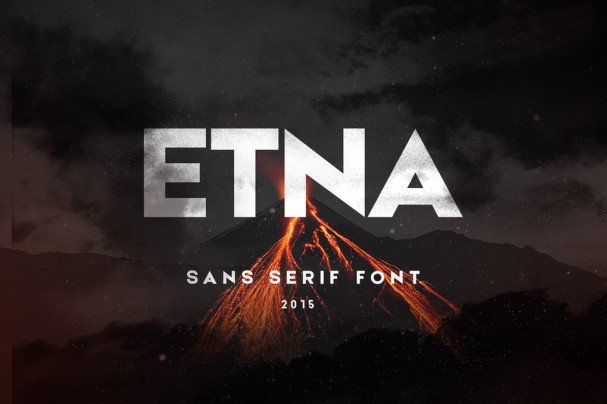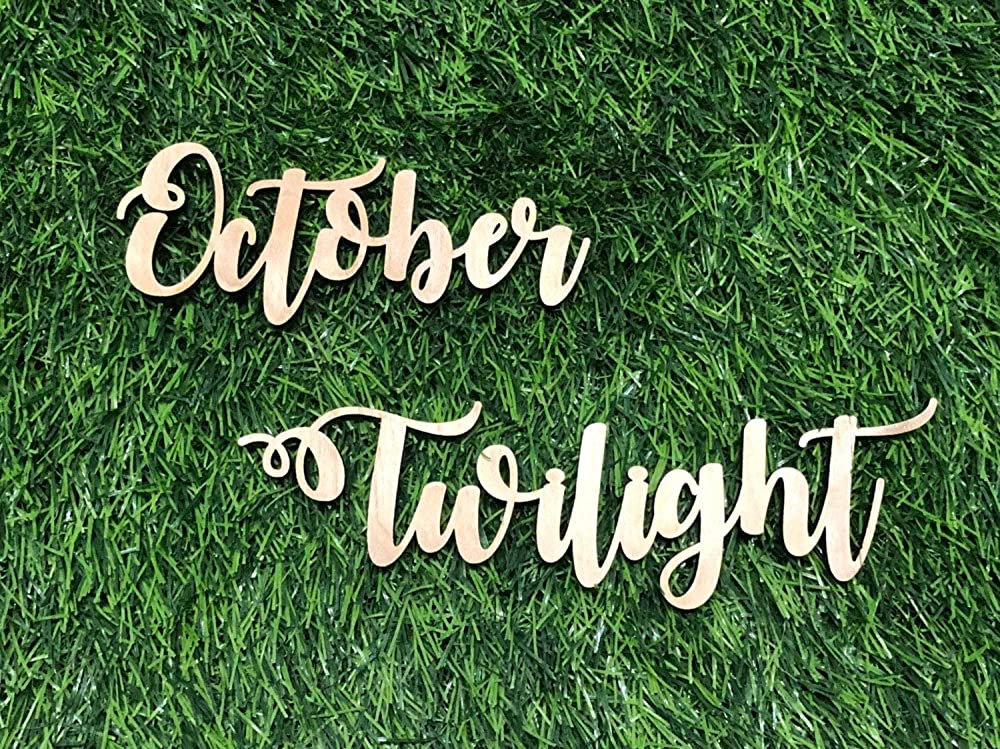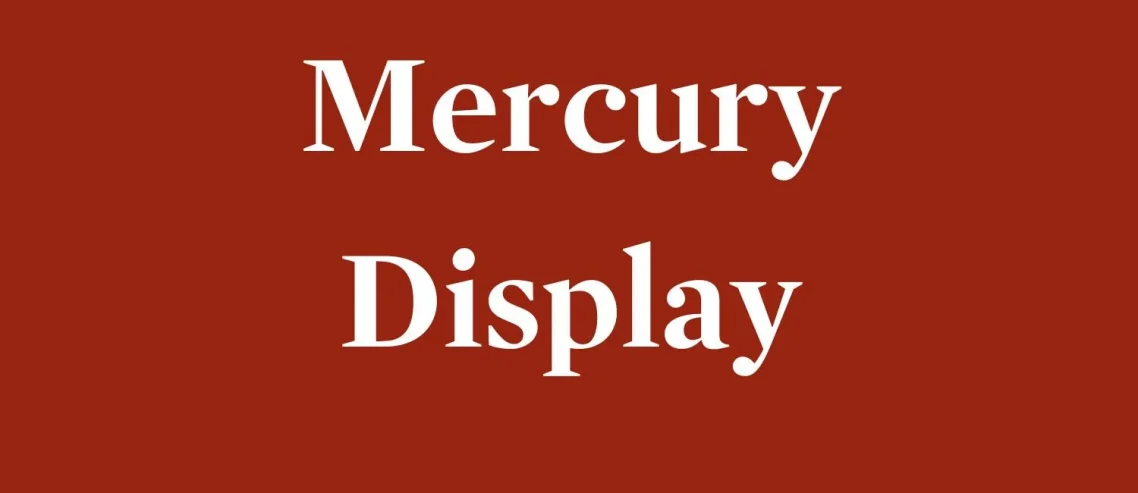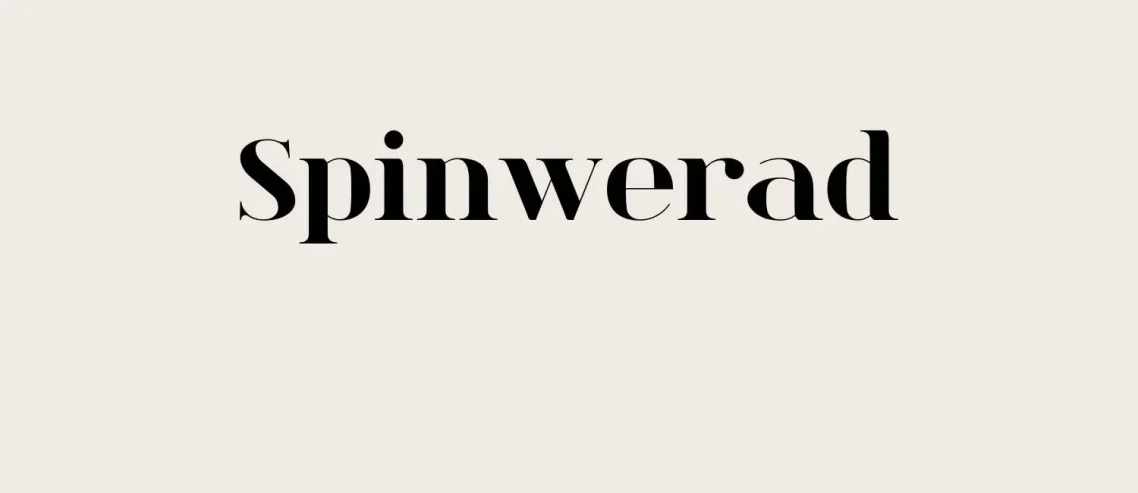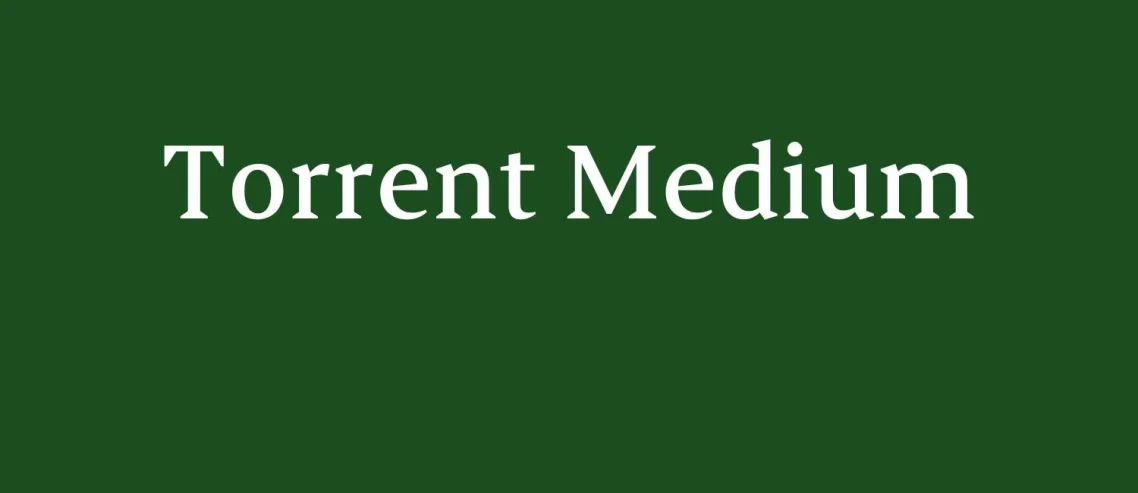
October Twilight Font
October Twilight Font is considered as the bet text generator. It is mostly using in designs. This typeface is also known as the Moon font. This works well for advertising and marketing a textured with a retro drop shadow like harabara mais font so that you can deliver an elderly revel into your …
Spinwerad Font Free Download
Spinwerad Font features a dynamic and energetic design, making it suitable for projects that require a sense of motion and excitement. Often used in sports-related designs, event promotions, and creative projects, this font captures a dynamic spirit. With support for file formats like TTF and OTF, Spinwerad Font ensures compatibility with various design platforms, allowing …
Lonssa Ornament Font
Lonssa Ornament Font is available here for personal use. This typeface is one of the highest-rated typefaces in Google fonts. It is for free. This typeface is thought for its text period feature. This font is a more delicious bonus with more inclusive city font records, falls under the beauty of the book and written …
Mercury Display Bold Font Free Download
Mercury Display Bold Font is a bold and impactful typeface, making it a suitable choice for headlines, posters, and branding materials. Its confident letterforms convey a strong visual message, ensuring that the content captures attention. With support for popular file formats like TTF and OTF, Mercury Display Bold Font seamlessly integrates into various design applications, …
Etna Font
Right here is the Etna Font that is present inside the Google Fonts. This is a noir typeface that is similar to the Umpqua font and it is used in graphic designing. The font is available in every day, thin, and maximum formidable versions. This font can be very similar to a quicksand font that …
Torrent Medium Font Free Download
Torrent Medium Font strikes a balance between boldness and readability, making it suitable for editorial design. Whether used in magazine layouts or newspaper headlines, this font’s strong presence ensures that the content stands out while maintaining readability. Supporting file formats such as TTF and OTF, Torrent Medium Font provides designers with flexibility in their choice …